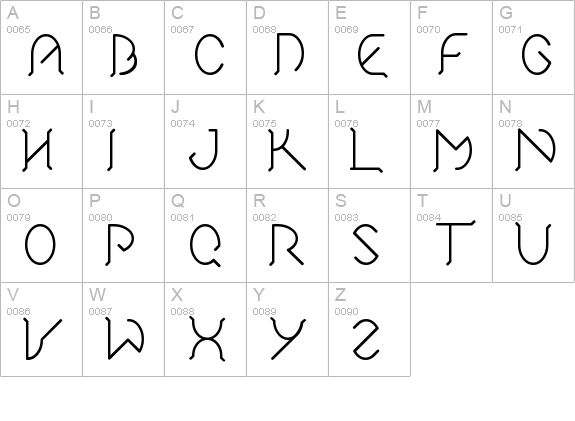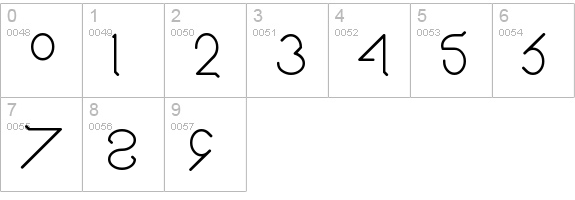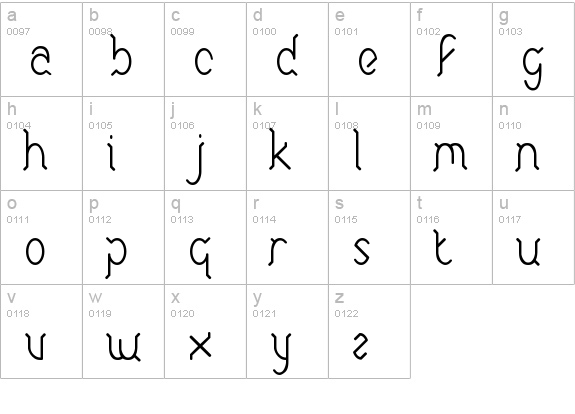
El Wonko Font Details
El Wonko font is a whimsical and playful typeface that brings a fun and quirky touch to any design project. With its unique and eye-catching letterforms, this font is perfect for adding a touch of creativity to your work. The irregular shapes and uneven lines give El Wonko a handcrafted look that is both charming and engaging. This versatile font can be used for a variety of projects, from branding and packaging to posters and invitations. Whether you're looking to create a bold headline or add a touch of personality to your text, El Wonko has got you covered. Best of all, El Wonko is available for free download at FontsMarket.com. So go ahead and add this delightful font to your collection today and let your creativity shine!